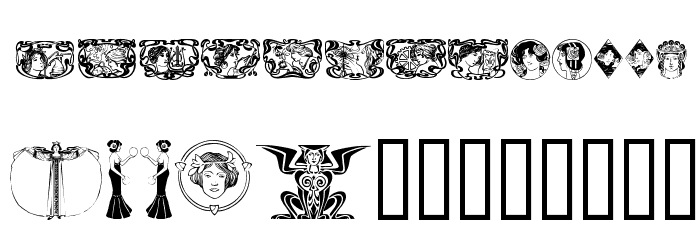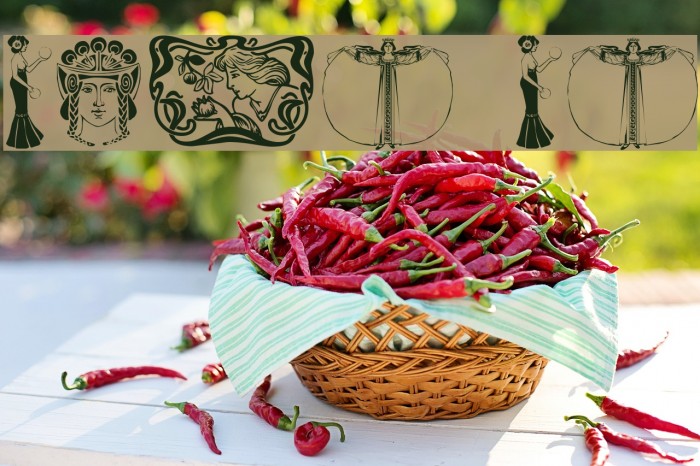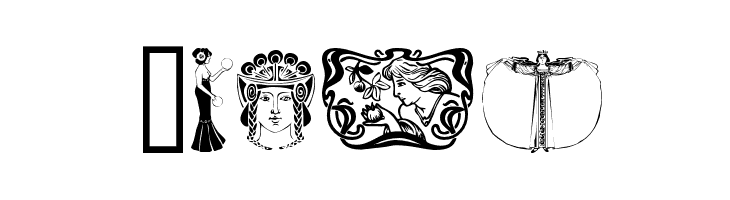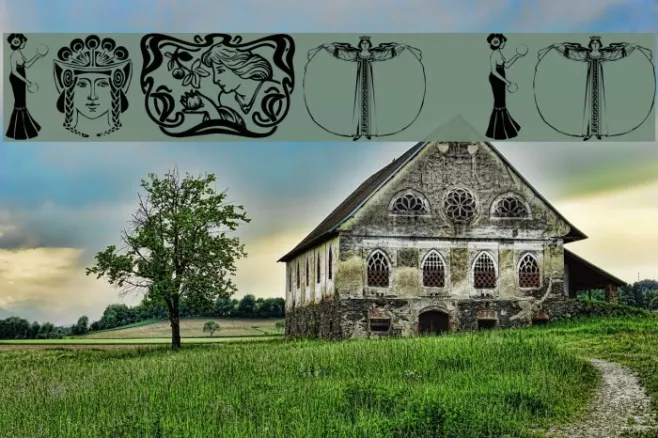
Women Font
This decorative font features intricate illustrations of women in various artistic poses and styles. Each character is uniquely designed with ornate details, capturing the elegance and grace of feminine figures. The font is highly decorative, with each letter encapsulated in a frame that enhances its artistic appeal. The style is reminiscent of Art Nouveau, with flowing lines and elaborate patterns that create a sense of movement and sophistication. This font is not suitable for body text due to its complexity but serves as a striking visual element for creative projects.
An ornate, Art Nouveau-inspired decorative font featuring intricate illustrations of women.
- Proposed Projects: Ideal for art projects, posters, book covers, and any design requiring a touch of elegance and artistic flair.
- Use Case: Logos, Headlines, Artistic projects